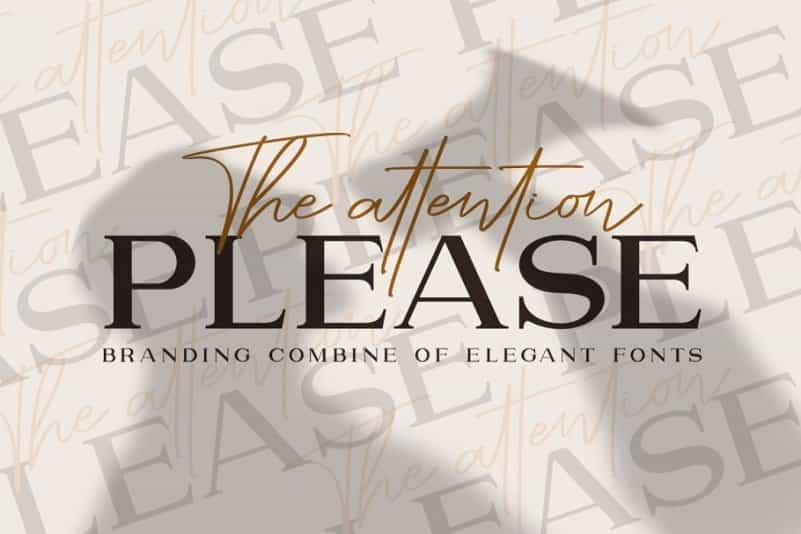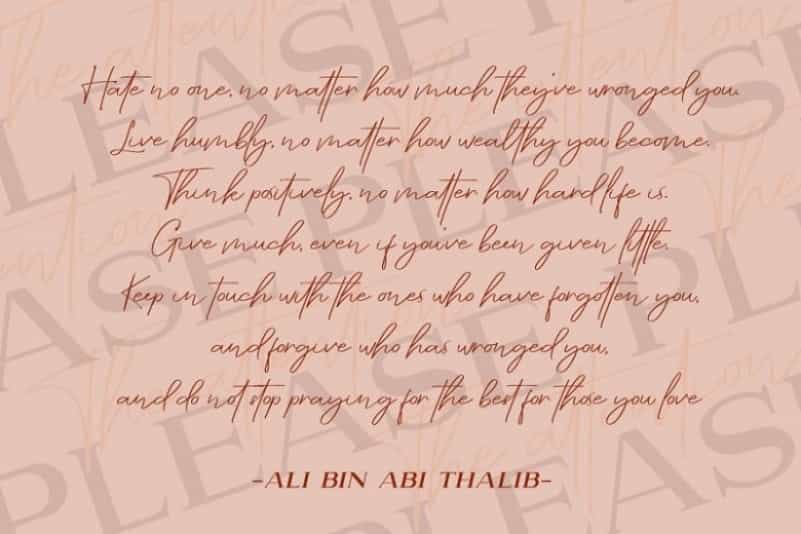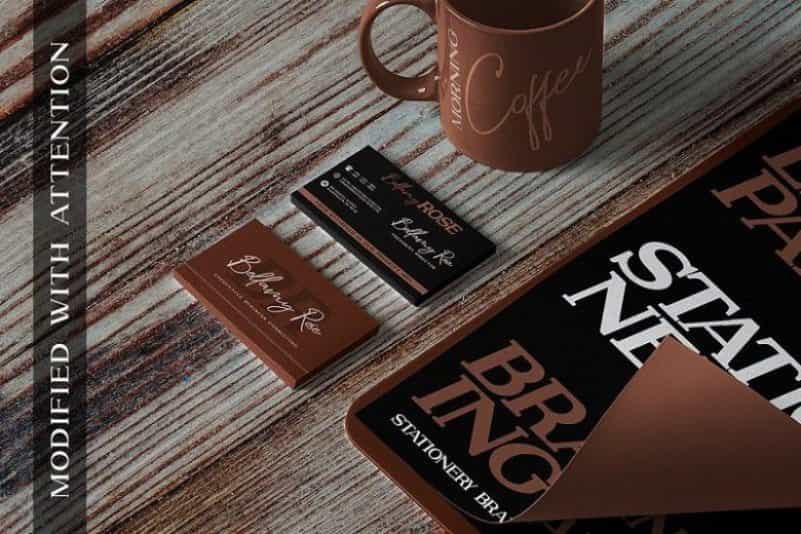
Discover The Attention Please Font Duo, part of the Handwritten Serif collection—a versatile and unique font perfect for adding a personal touch to your projects. Download it for free and enjoy crafting designs with style, from invitations to social media posts. This font is available exclusively for personal use, giving you the freedom to create without limits. Unlock your creativity with The Attention Please Font Duo today!
Attention Please Font is created using very natural writing technique which look stunning and elegant. Attention font has a wonderful combination of serif and handwritten script fonts that look great utilized in conjunction with other fonts. This font is also full of ligature that will create a natural-looking writing style as we write.